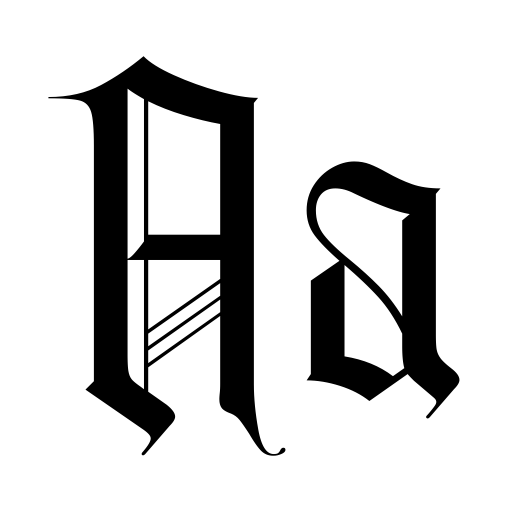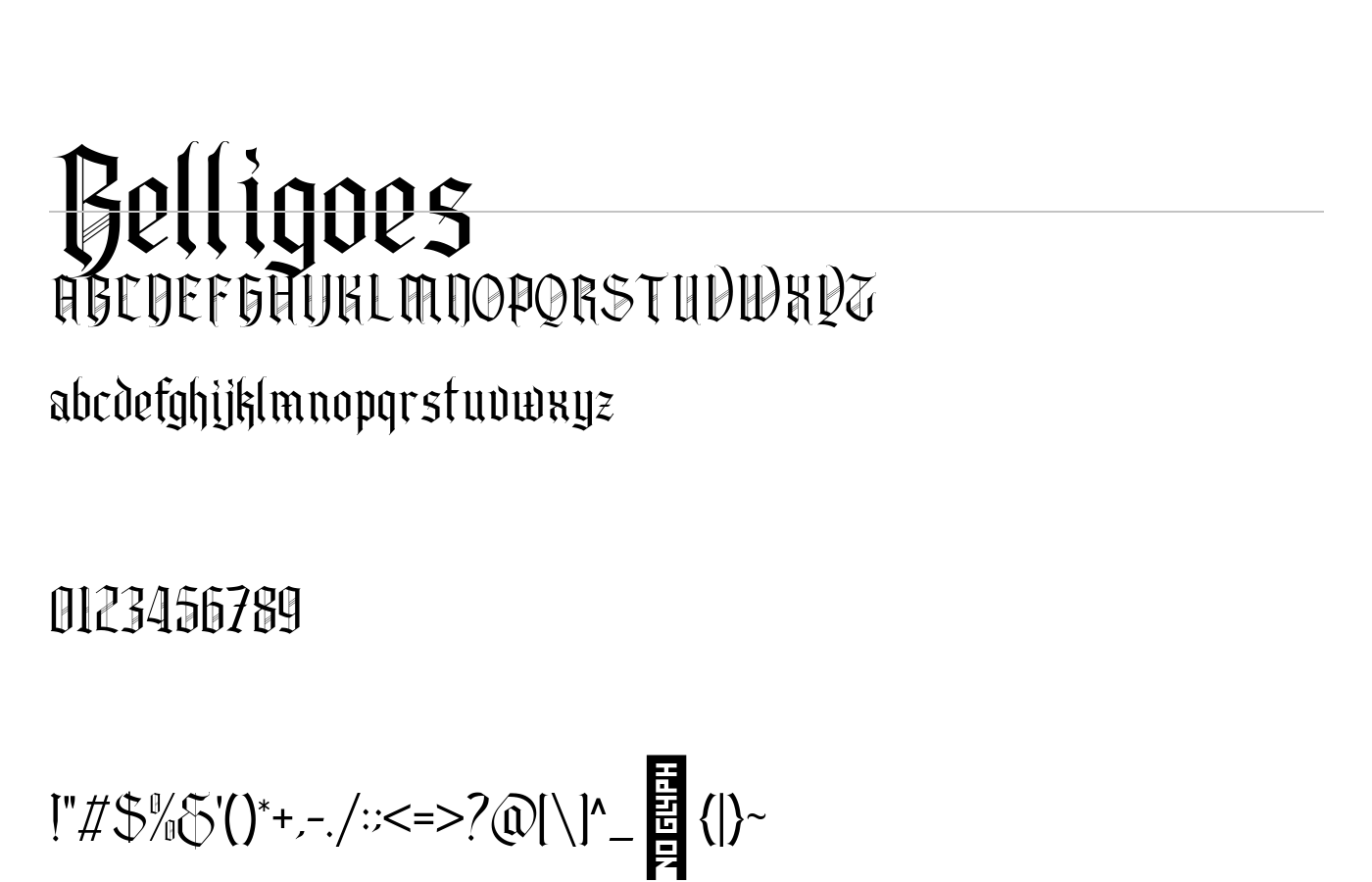
Belligoes is a striking blackletter serif font with tall, narrow forms and sharp, angular strokes that evoke a historic, gothic feel. Its high contrast and intricate details make it ideal for creating a dramatic, vintage atmosphere in logos, headlines, or decorative projects, especially where a bold, ornamental style is desired. This font works best in designs that aim to communicate tradition, elegance, or a dark, mysterious vibe.
Belligoes Font
About Belligoes Font